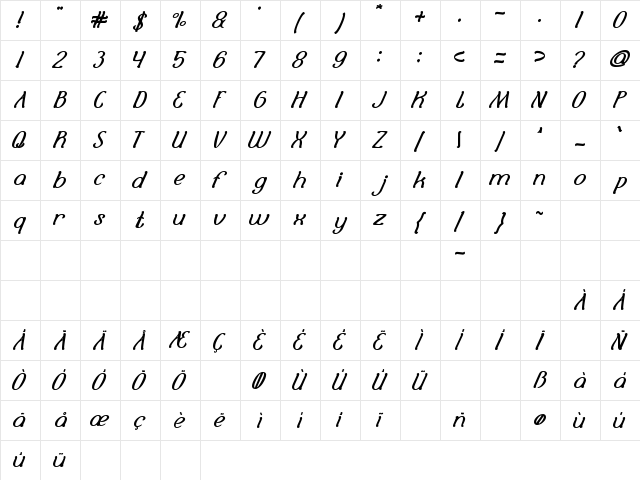
Selamat Hari Raya Regular
Design Context for Selamat Hari Raya Typeface
Selamat Hari Raya offers clean, dependable letterforms without strong stylistic allegiance, making it a practical choice for designers who need flexibility.